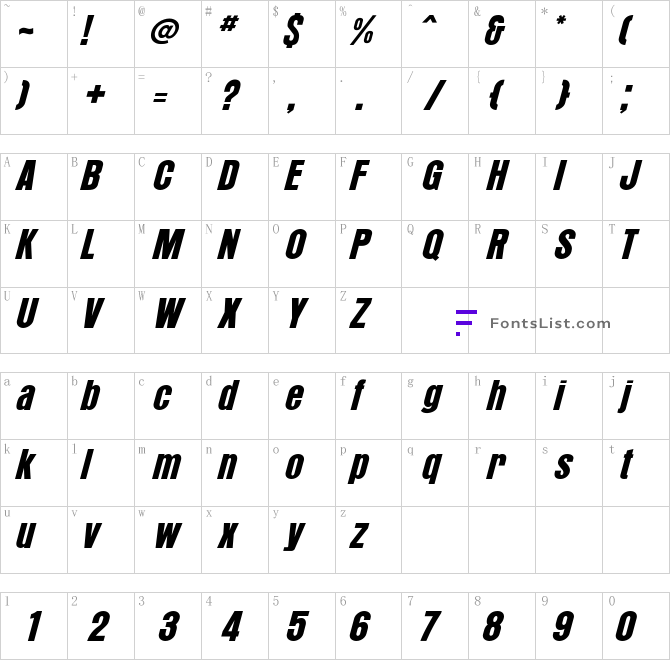
- Font Name:Alrono
Alrono-Italic.ttf is a very beautiful artistic font, Alrono-Italic.ttf is widely used in the design and printing of various books and pictures,Alrono-Italic.ttf has a strong visual impact,Alrono-Italic.ttf is a commonly used font in newspapers, magazines and books, and is used in posters, e-commerce Poster design, store design, logo design, font design and other fields.Alrono-Italic.